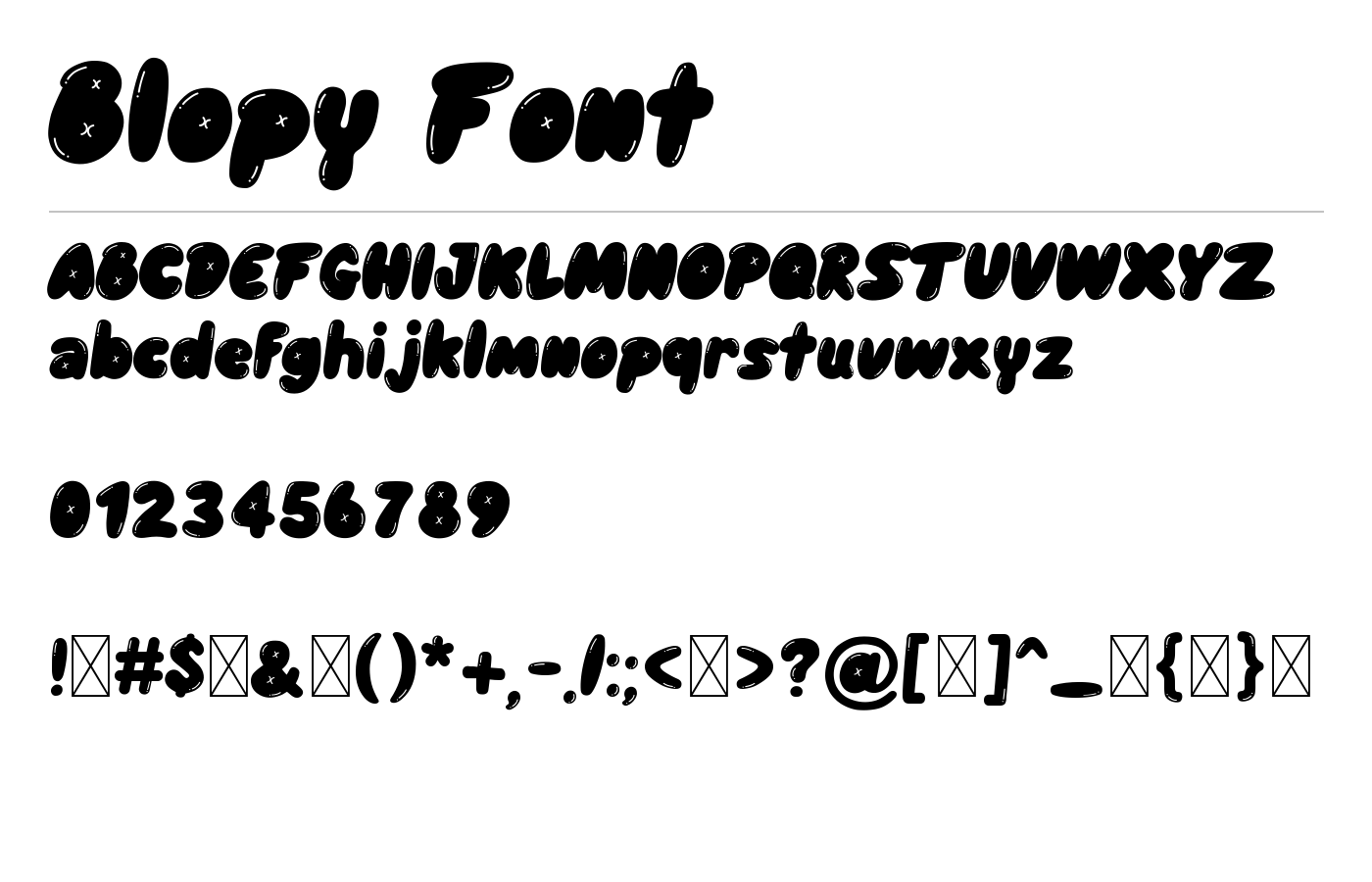
Blopy Font is a bold, playful display typeface with a bubbly, rounded style that feels fun and informal. Its thick, irregular letterforms with whimsical details give it a lively and youthful personality, making it perfect for creative projects, children's materials, or casual branding. This font works best in headlines, logos, and designs that aim to communicate energy and friendliness.
Blopy Font
About Blopy Font
| Font family | Blopy Font |